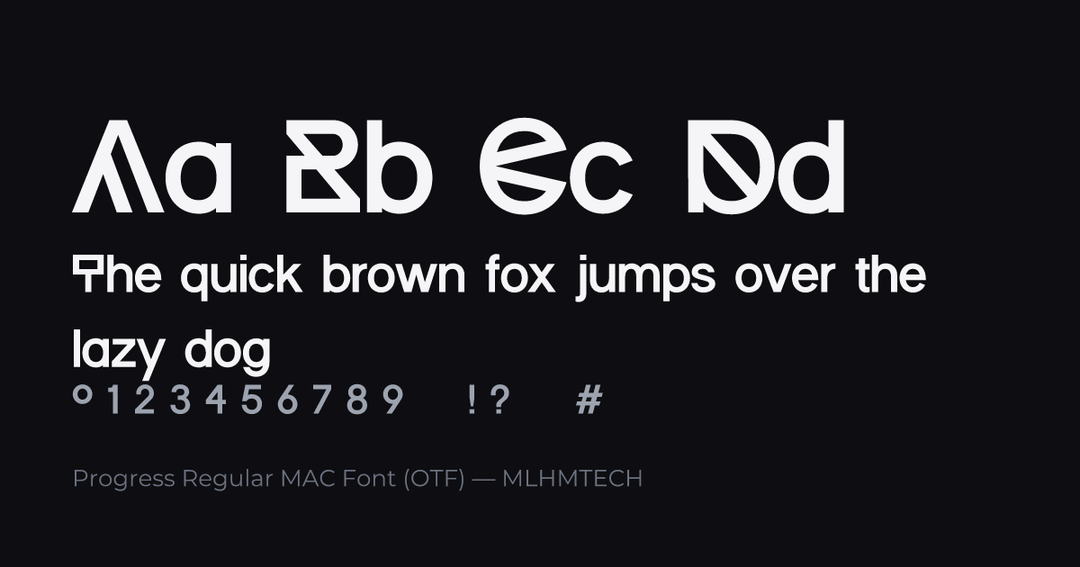
Progress Regular MAC Font (OTF)
Progress Regular is a clean, modern sans-serif font in OTF format, ideal for titles, logos, and creative projects.
Progress Regular is a versatile sans-serif typeface that combines geometric clarity with a contemporary feel. Its balanced proportions and consistent stroke weights make it highly legible across various sizes, from headlines to body text. The font is provided in OTF (OpenType) format, ensuring compatibility with most design software on both Mac and Windows.\n\nThis font is part of a handpicked collection, curated for designers seeking reliable, high-quality typography. Whether you're working on branding, web design, or video titles, Progress Regular offers a professional and approachable aesthetic. Its neutral character allows it to pair well with serif fonts or stand alone for a minimalist look.\n\nPlease note that this file is named for MAC, but OTF files are cross-platform. Always check the license for commercial use before deploying in client projects.